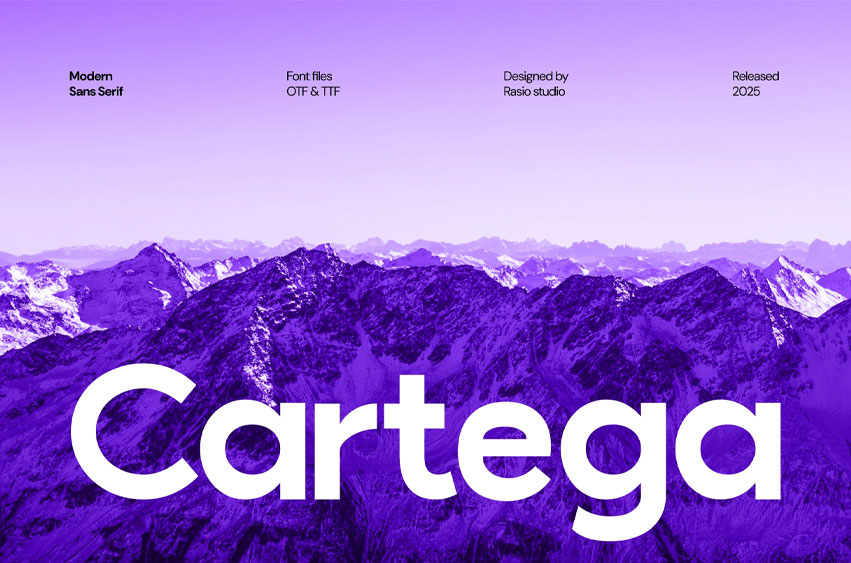
Cartega Font Modern Sans Serif Font embodies the essence of clarity, geometry, and modern elegance. Designed with smooth curves, balanced proportions, and subtle inktraps, Cartega delivers high readability across all sizes and media.
Its clean, minimalist construction gives a confident and timeless character suitable for professional branding, corporate design, and digital interfaces. Cartega stands out as a versatile geometric sans serif with a refined, contemporary edge.
Relevance and Use Cases is perfect for tech startups, digital branding, corporate design, editorial layouts, website UI/UX, minimalist packaging, clean product presentations, and modern advertising visuals.
• Uppercase & Lowercase characters
• Subtle inktrap detailing